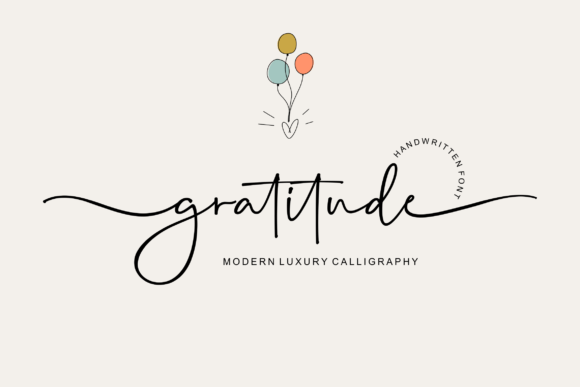
Gratitude Font
About the Gratitude Font
Welcome to the world of Gratitude Font, a typeface that will inspire your next great project. Gratitude is a dazzling script font. This font is neatly crafted and highly detailed. Whatever the topic, this font will be a wonderful asset to your font library, as it has the potential to enhance any creation.
Gratitude’s elegant, yet slightly playful, personality makes it ideal for headlines, logos, short quotes, and invitations. Its detailed swashes shine in branding projects requiring a touch of sophistication, particularly for businesses in the fashion, beauty, or luxury goods sectors. Avoid using it for large blocks of body text or UI elements; its intricate details can become overwhelming and difficult to read at smaller sizes.
Pairing Gratitude with a clean sans-serif like Montserrat for body text creates a visually appealing contrast. For a more formal look, consider pairing it with a classic serif font such as Garamond or Didot. A geometric sans-serif like Futura would provide a modern counterpoint, enhancing Gratitude’s inherent elegance.
Its overall aesthetic leans towards a sophisticated yet approachable feel, making it unsuitable for projects requiring a strong, bold, or overtly modern aesthetic. Instead, it works best where a sense of refined charm and subtle detail is desired.
Gratitude Font Usage Examples
Gratitude Font Example